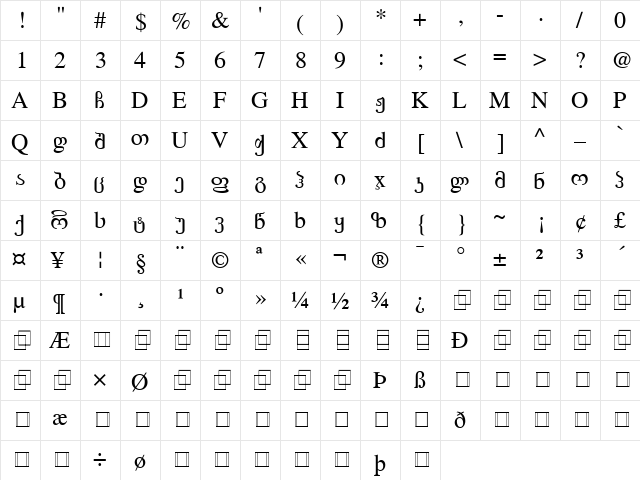
Times Georgian Regular
Design Context for Times Georgian Typeface
Times Georgian is a composed and adaptable typeface that performs quietly and consistently across a wide range of design contexts.